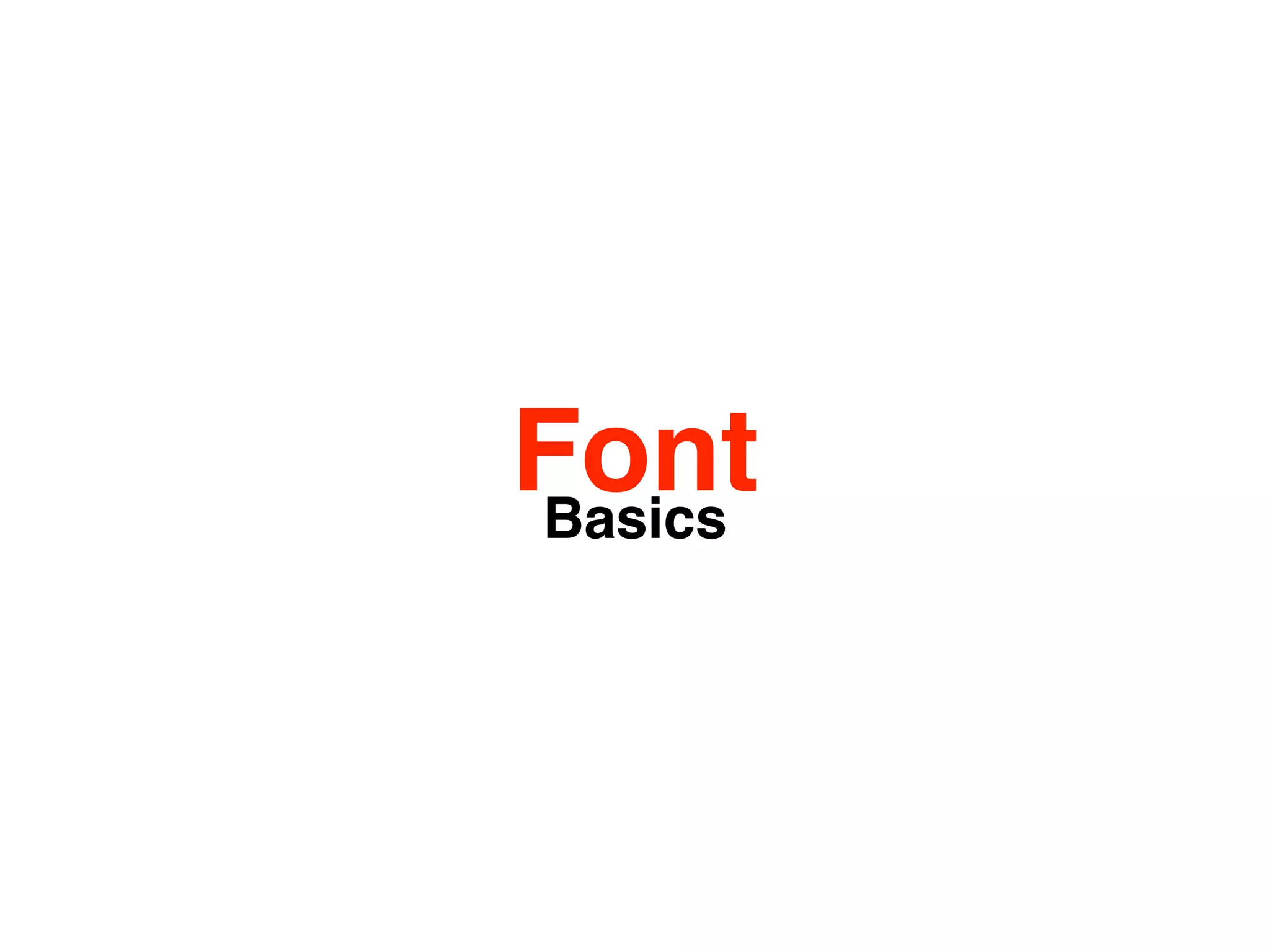
Font
Basics
Font
In typography, a font (also fount) is traditionally defined as a quantity
of sorts composing a complete character set of a single size and style
of a particular typeface.
After the introduction of computer fonts based on fully scalable outlines,
a broader definition evolved.
Font is no longer size-specific, but still refers to a single style.
Bulmer regular, Bulmer italic, Bulmer bold and Bulmer bold italic are
four fonts, but one typeface.
Font characteristics
Weight
The weight of a particular font is the thickness of the character outlines relative to their height.
A typeface may come in fonts of many weights, from ultra-light to extra-bold
or black; four to six weights are not unusual, and a few typefaces have as
many as a dozen. Many typefaces for office, Web and non-professional
use come with just a normal and a bold weight. If no bold weight is
provided, many renderers (browsers, word processors, graphic and DTP
programs) support faking a bolder font by rendering the outline a second
time at an offset, or just smearing it slightly at a diagonal angle.
The base weight differs among typefaces; that means one normal font may
appear bolder than some other normal font. For example, fonts intended to
be used in posters are often quite bold by default while fonts for long runs
of text are rather light. Therefore weight designations in font names may
differ in regard to the actual absolute stroke weight or density of glyphs in
the font.
Attempts to systematize a range of weights led to a numerical classification
first used by Adrian Frutiger with the Univers typeface, although originally
only ranging from 3 to 8 - e.g.: 35 Extra Light; 45 Light; 55 Medium or
Regular; 65 Bold, 75 Extra Bold; 85 Extra Bold; 95 Ultra Bold or Black.
Font -
Slope
In todayʼs European typefaces, especially roman ones, the font
style is usually connected to the angle.
When the normal, roman or upright font is slanted – usually to the right in left-to-
right scripts – the lowercase character shapes change slightly as well,
approaching a more handwritten, cursive style.
In many sans-serif and some serif typefaces the characters of the italic fonts are
only slanted (oblique), which is often done algorithmically, without otherwise
changing their appearance. Such oblique fonts are not true italics, because they
lack the change in letter shapes which is part of the definition of an italic.
roman
italic
oblique
Font -
Serifs
In typography, serifs are semi-structural details on the
ends of some of the strokes that make up letters and
symbols.
A typeface that has serifs is called a serif typeface (or
seriffed typeface).
A typeface without serifs is called sans-serif, from the French sans,
meaning “without”.
Some typography sources refer to sans-serif typefaces as
"grotesque" (in German "grotesk") or "Gothic", and serif types as
"Roman".
Font -
Sans Serif
In typography, a sans-serif or sans serif typeface is one that does not have the small
features called "serifs" at the end of strokes. The term comes from the Latin word "sine",
via the French word sans, meaning "without".
In print, sans-serif fonts are more typically used for headlines than for body text.[1] The conventional wisdom
holds that serifs help guide the eye along the lines in large blocks of text. Sans-serifs, however, have acquired
considerable acceptance for body text in Europe.
Sans-serif fonts have become the de facto standard for body text on-screen, especially online. This is partly
because interlaced displays may show twittering on the fine details of the horizontal serifs. Additionally, the low
resolution of digital displays in general can make fine details like serifs disappear or appear too large.
Before the term “sans-serif” became standard in English typography, a number of other terms had been used.
One of these outmoded terms for sans serif was gothic, which is still used in East Asian typography and
sometimes seen in font names like Century Gothic.
Sans-serif fonts are sometimes, especially in older documents, used as a device for emphasis, due to
their typically blacker type color.
Font -
San-Serifs
■    Grotesque, early sans-serif designs, such as Grotesque, Akzidenz
Grotesk, and Franklin Gothic.
■    Neo-grotesque or Transitional or Realist, modern designs such as
Standard, Bell Centennial, MS Sans Serif, Helvetica, Univers, Highway
Gothic, and Arial. These are the most common sans-serif fonts. They are
relatively straight in appearance and have less line width variation than
Humanist sans-serif typefaces. Transitional sans-serif is sometimes called
"anonymous sans-serif" due to its relatively plain appearance.
■    Humanist (Calibri, Johnston, Lucida Grande, Segoe UI, Gill Sans, Myriad,